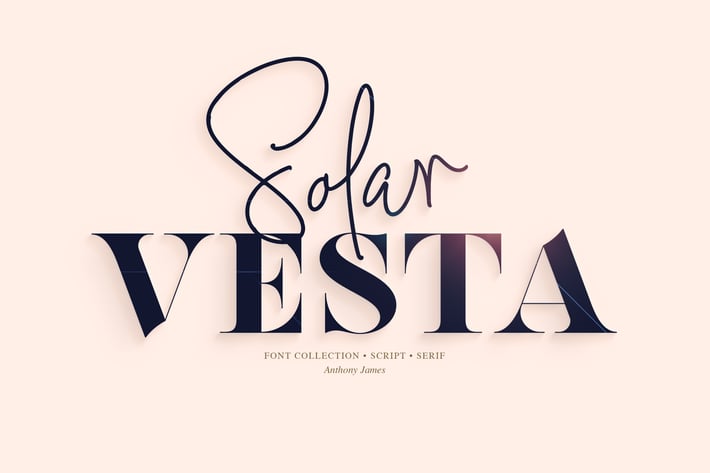
Solar Vesta | Font Collection
Introducing Solar Vesta font collection. This collection houses both Script & Serif fonts that compliment each other perfectly. Solar Vesta Script includes 127 Ligatures, along with a full set of Alternates/Contextuals for a completely versatile and natural Handwritten aesthetic. Solar Vesta Serif is a sharp and robust fashion-based typeface, incorporating that beautiful contrast between thick and thin. Both fonts contain multilingual support, both PUA friendly, Solar Vesta also accommodates extended language systems. Also contains free swashes and both OTF & TTF formats.